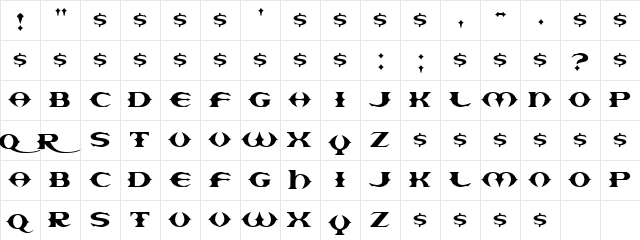
Europa Regular Font Preview
Europa Regular
Design Context for Europa Typeface
Europa is a composed and adaptable typeface that performs quietly and consistently across a wide range of design contexts.